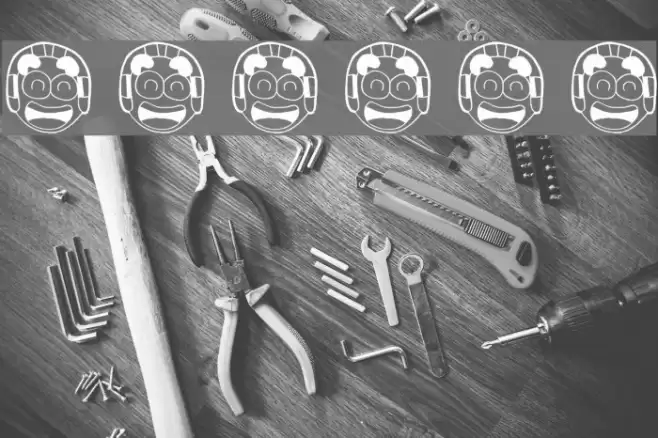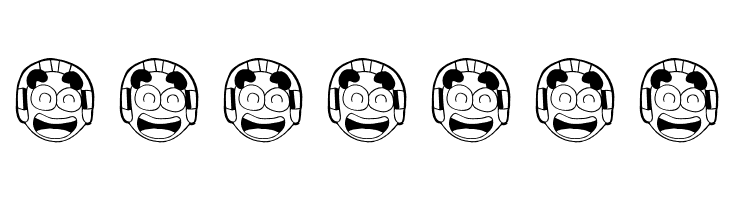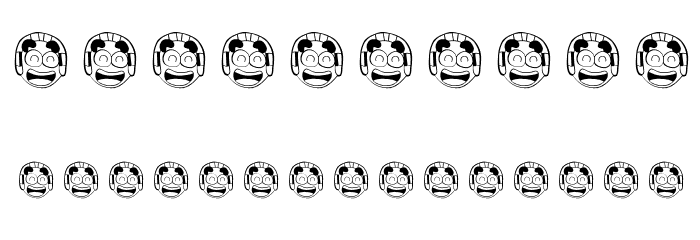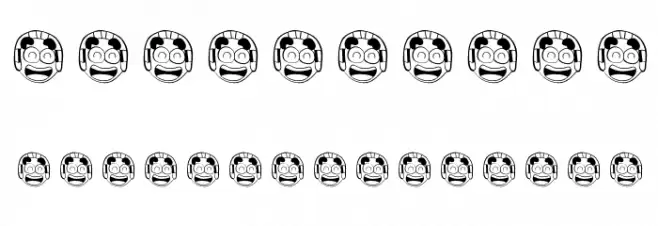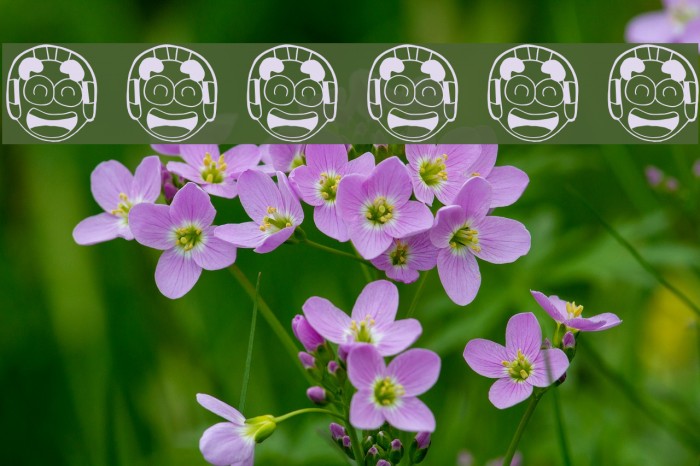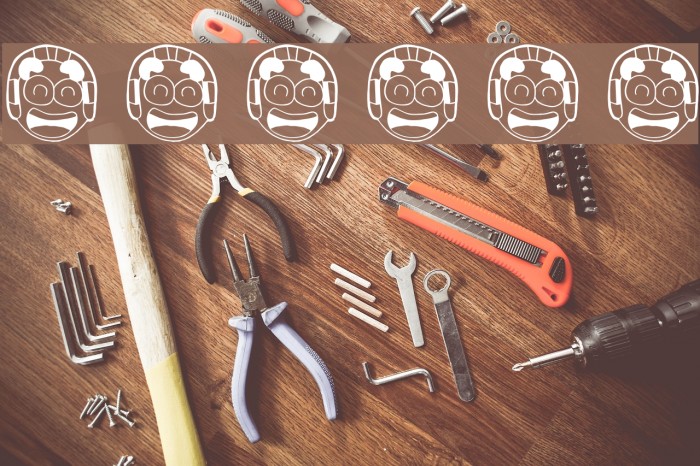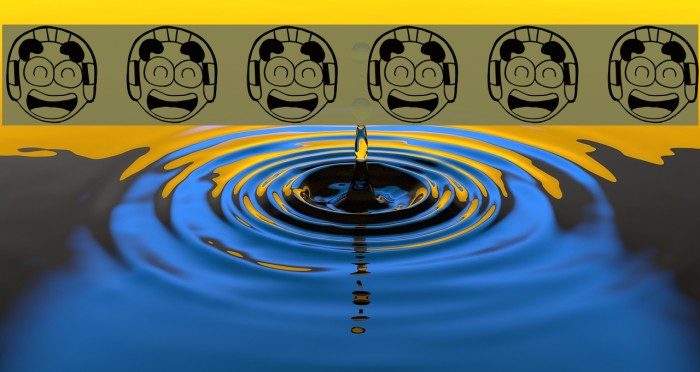
MOVE-ON Font
MOVE-ON Description
A decorative display typeface featuring a cartoonish, outlined monkey face as the sole glyph, repeated in various sizes and arrangements. The design is playful and highly stylized, with strong lines and exaggerated facial features.
A whimsical, cartoon-style display font using a monkey face as its character from Uncategorized fonts.
- Proposed Projects: Children's books, party invitations, playful branding, posters, novelty merchandise.
- Overall Style: Playful, Cartoon, Decorative
- Use Case: Logos, Posters, Children's materials, Event graphics